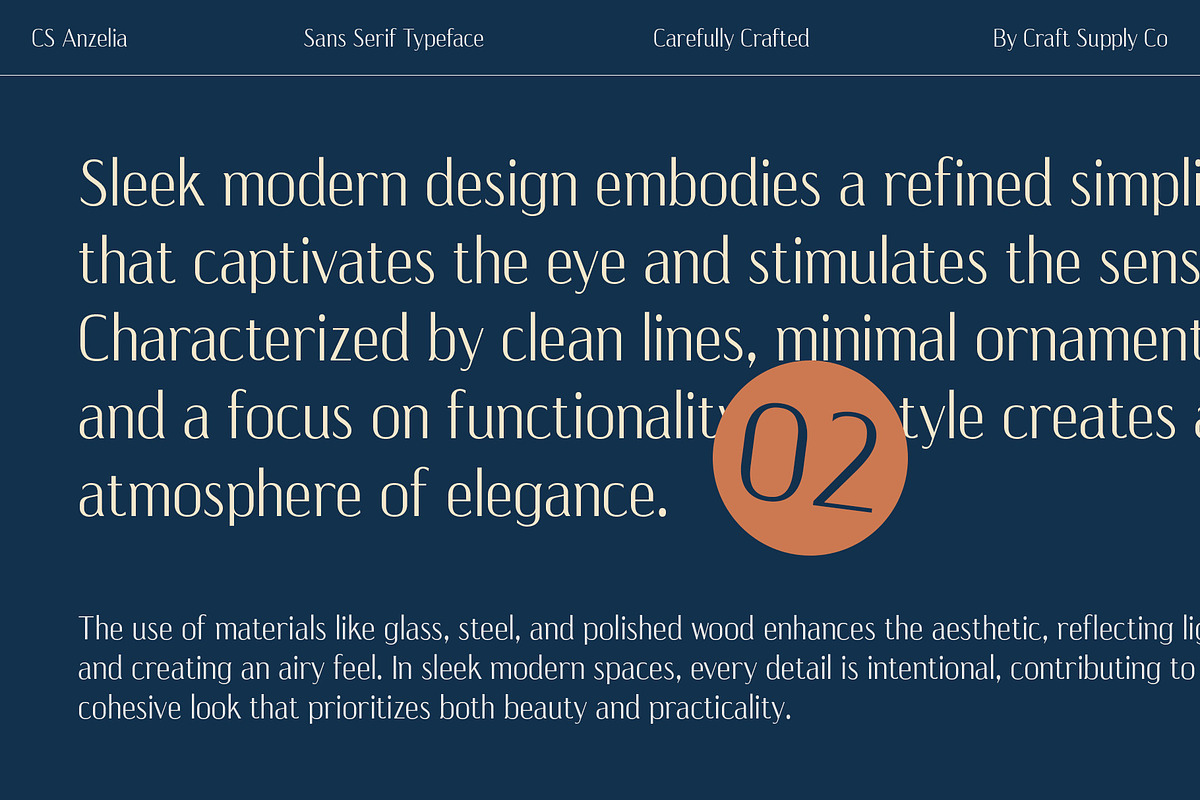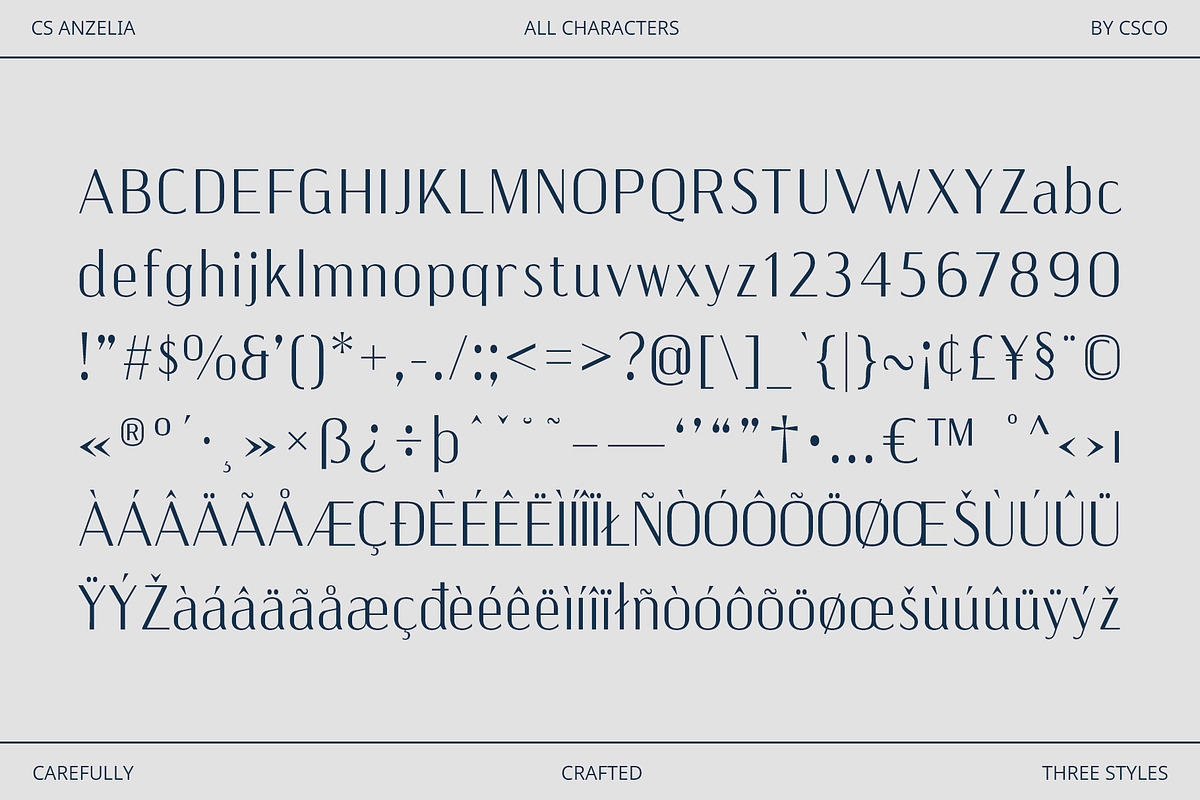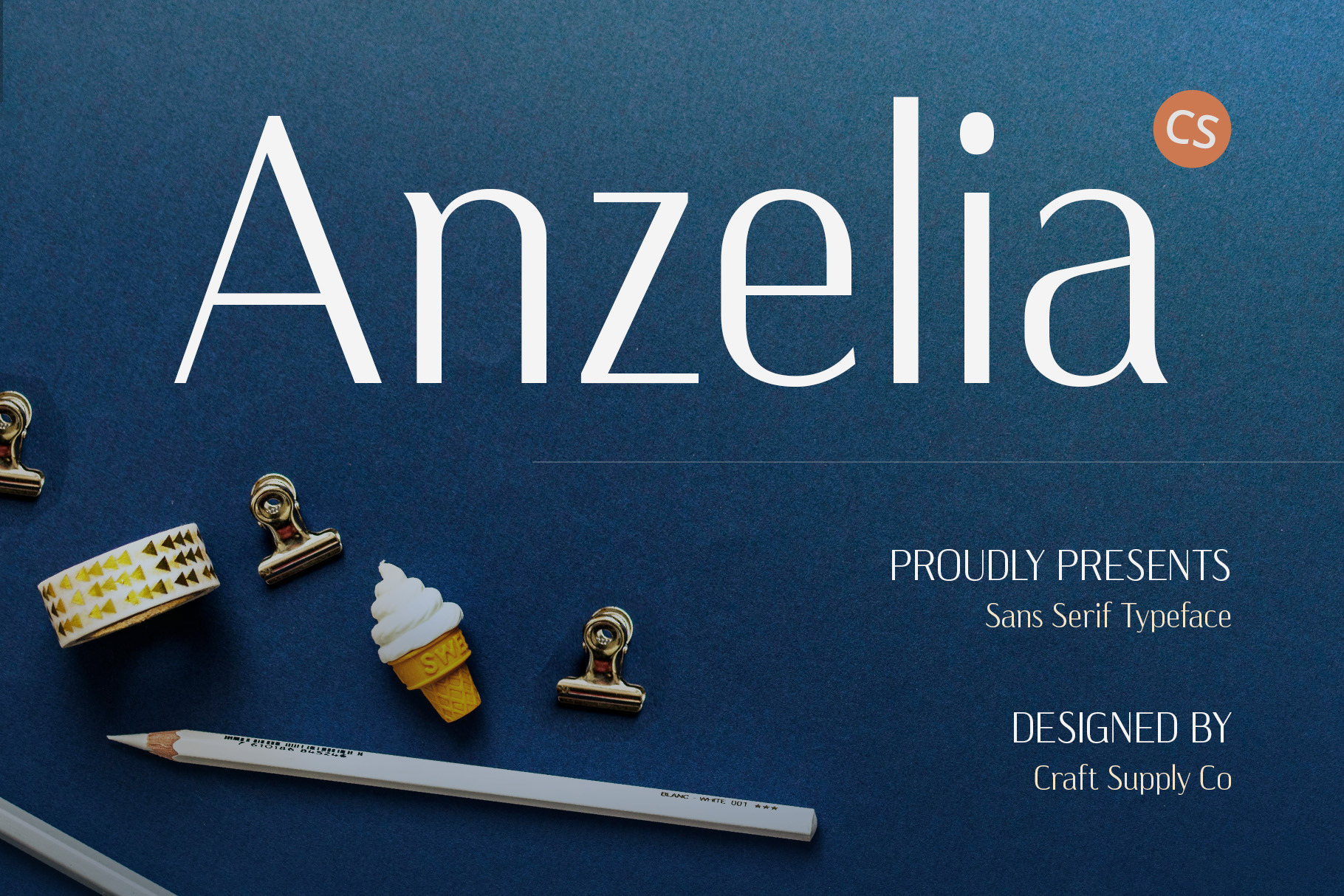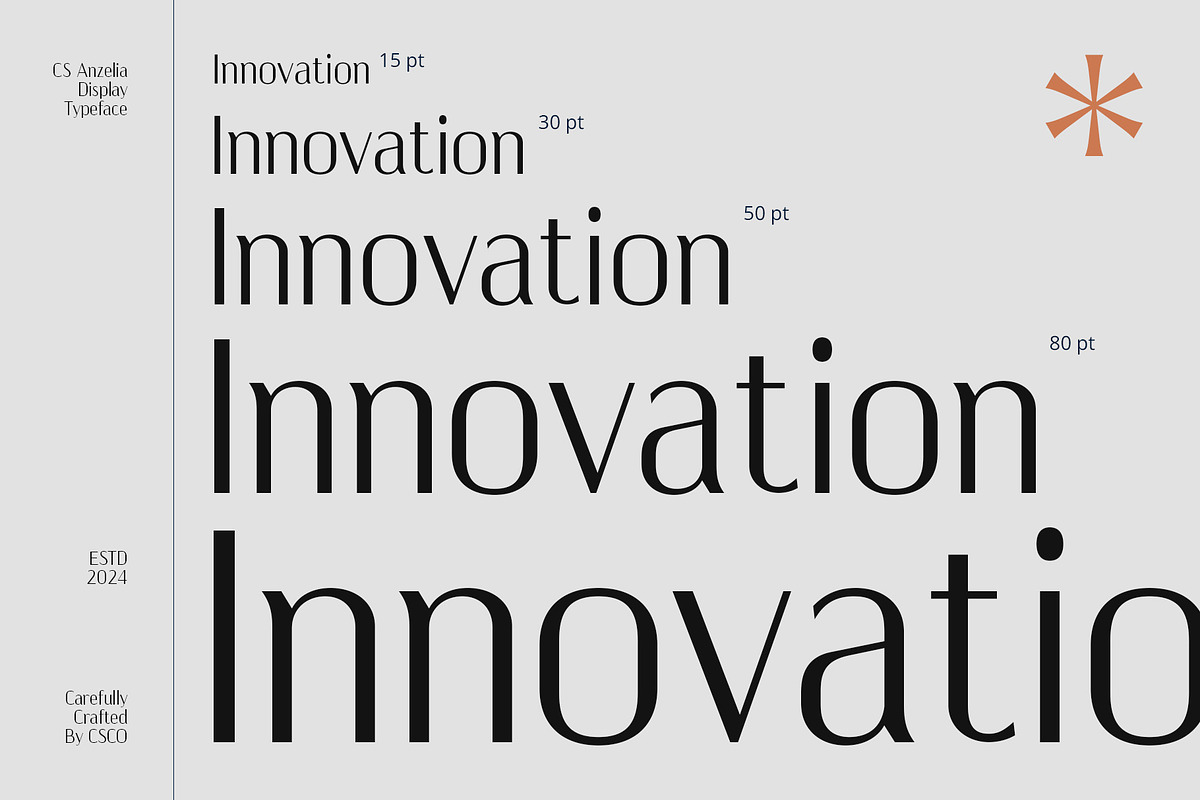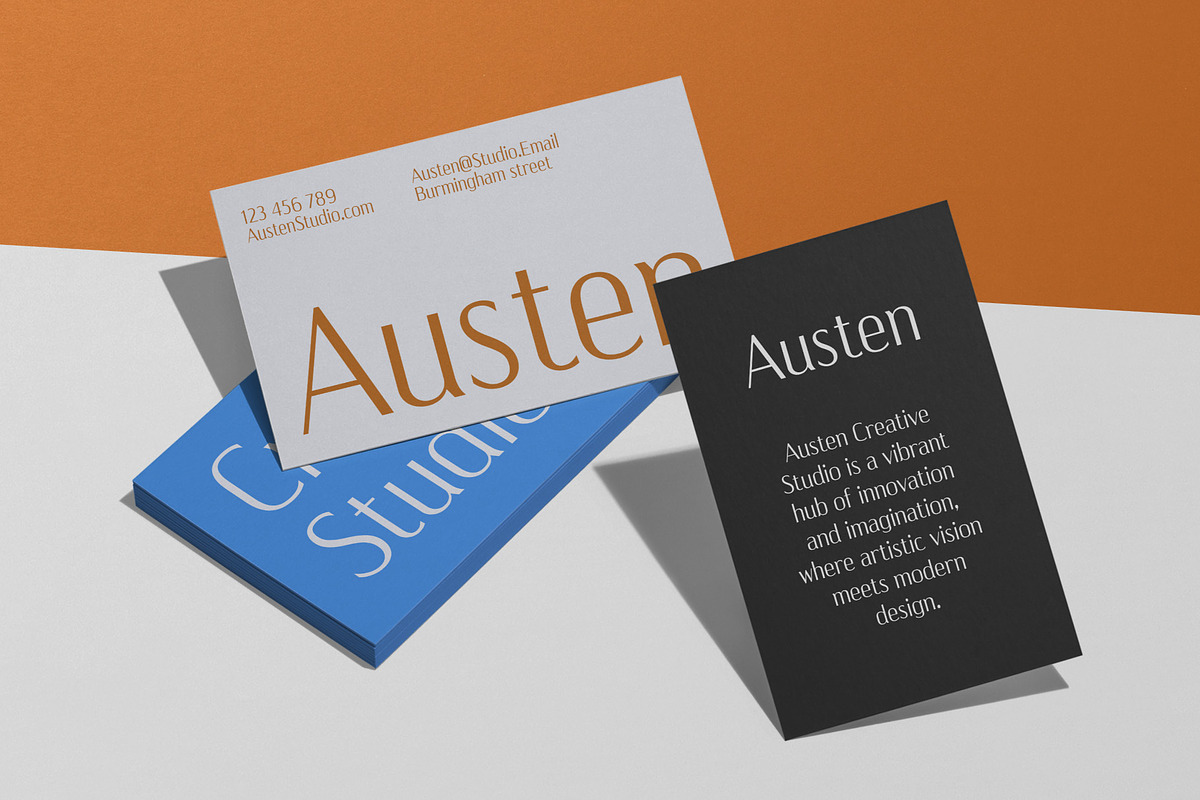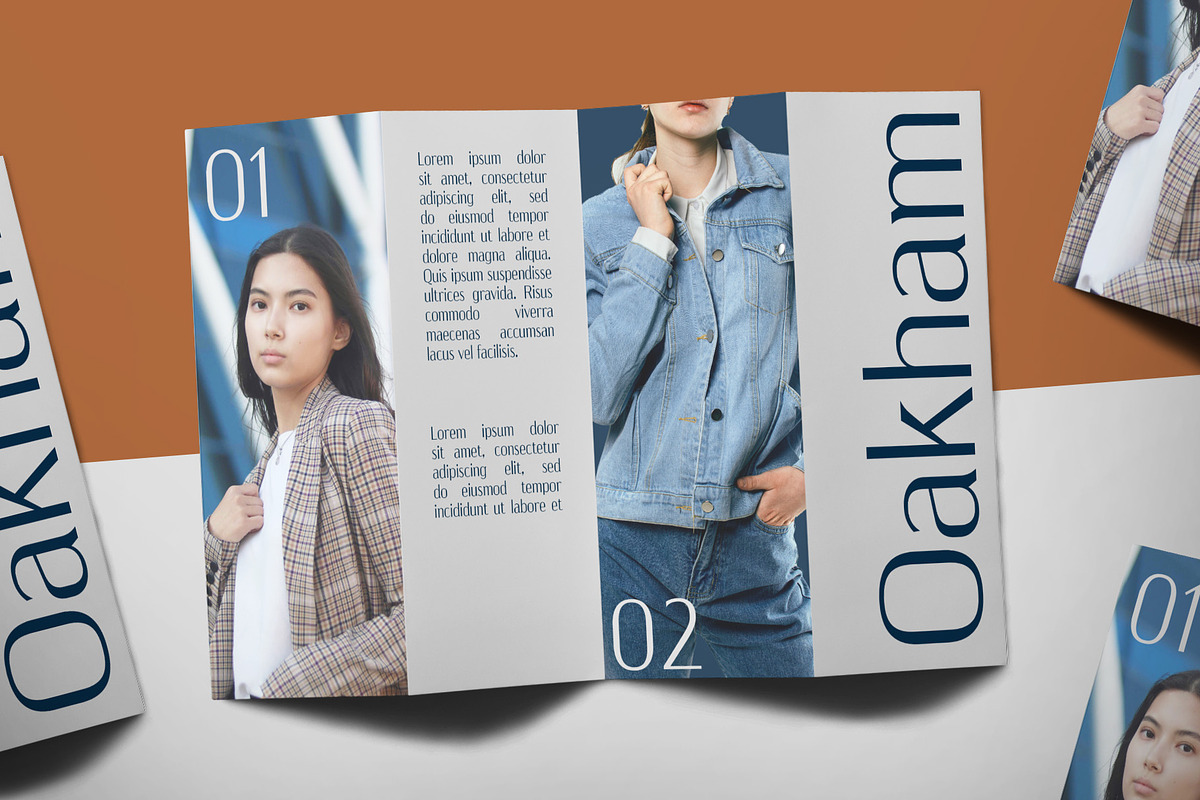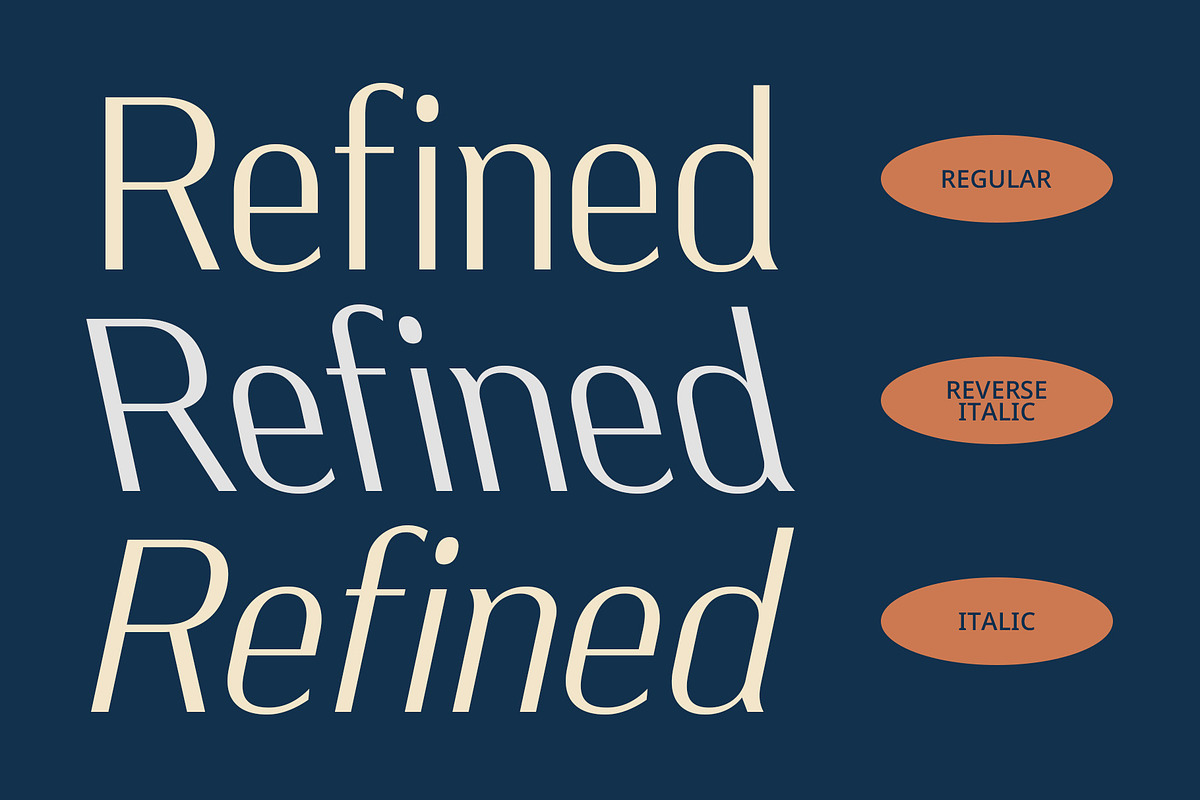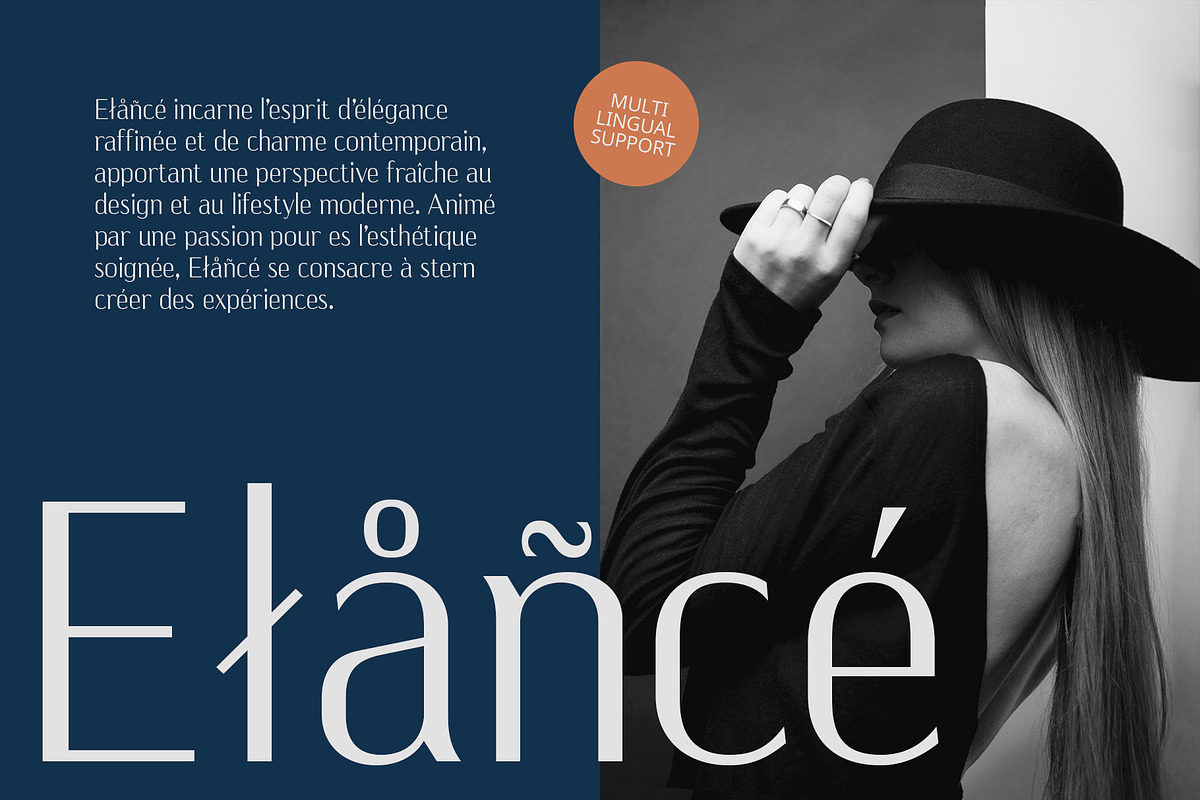
CS Anzelia – Modern Font
Sleek and Professional Design CS Anzelia is a striking modern sans serif font characterized by its contemporary geometric design. This font embodies a clean and professional impression, making it an exceptional choice for a wide range of design applications. Its sharp lines and structured shapes contribute to a sleek and minimalist aesthetic, ensuring that your text is not only visually appealing but also optimally readable across various sizes and mediums.
Optimal Readability This font is meticulously crafted for optimal readability, making it suitable for use in a range of contexts, from web design to print media. Its clear letterforms maintain legibility across different sizes, ensuring that your message is communicated effectively. Whether displayed in large headlines or small body text, CS Anzelia delivers a consistent reading experience.
Versatile Applications Ideal for web design, branding, and marketing materials, CS Anzelia enhances visual communication with its modern touch. Whether you’re creating digital content, corporate identities, or promotional materials, this font delivers a sophisticated vibe that elevates your brand image. Its versatility makes it suitable for both formal and casual contexts, providing designers with a reliable option for diverse projects.
- CS Anzelia Regular
- CS Anzelia Italic
- CS Anzelia Reverse Italic